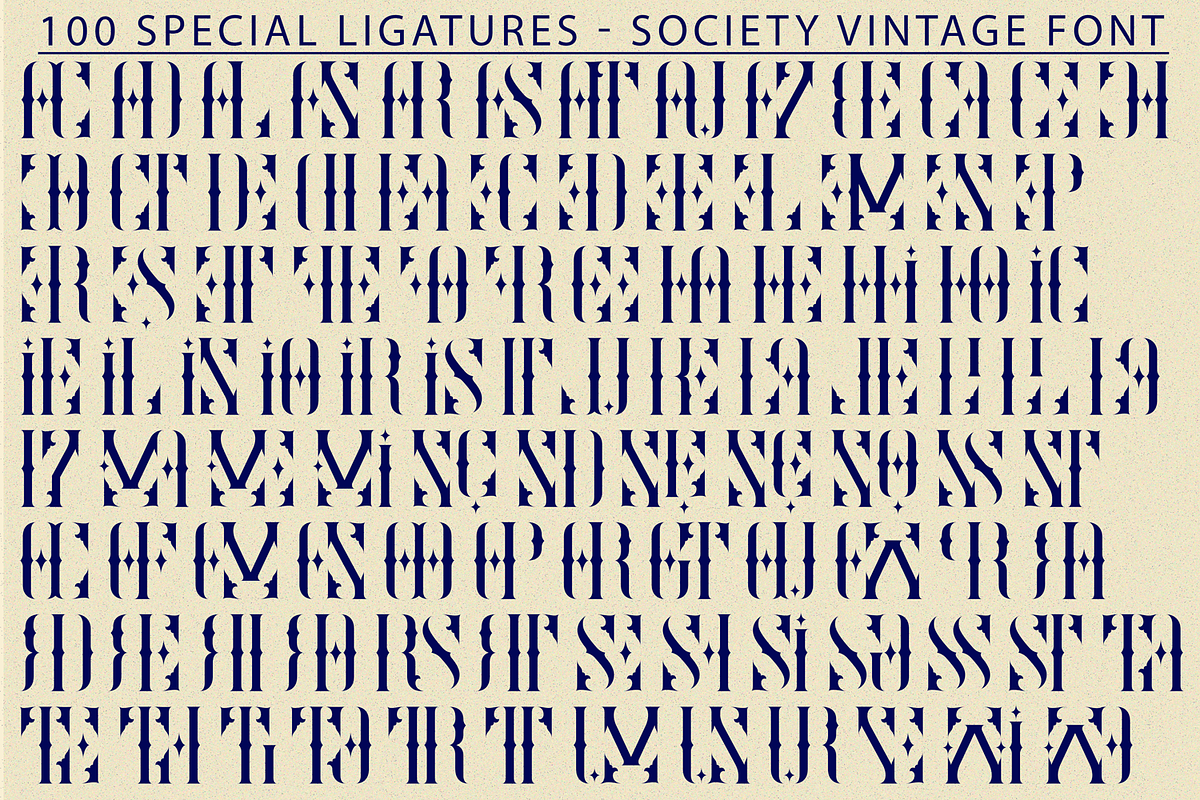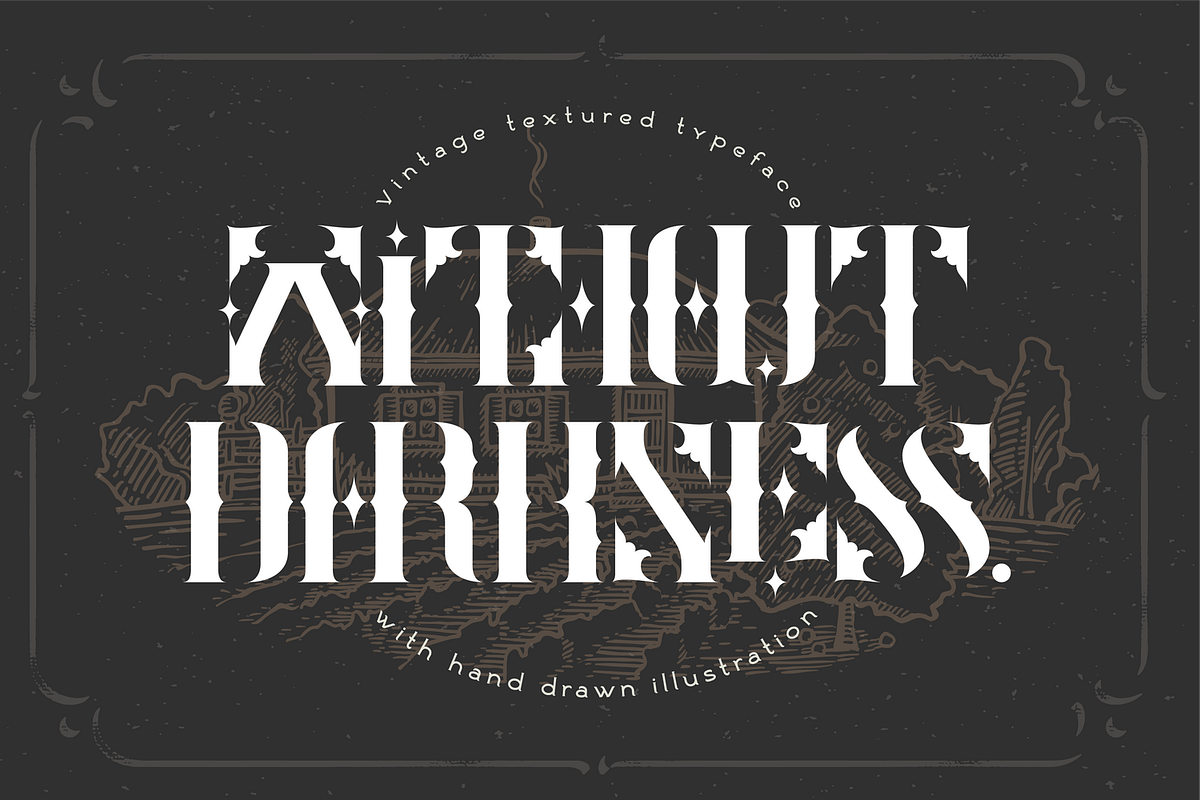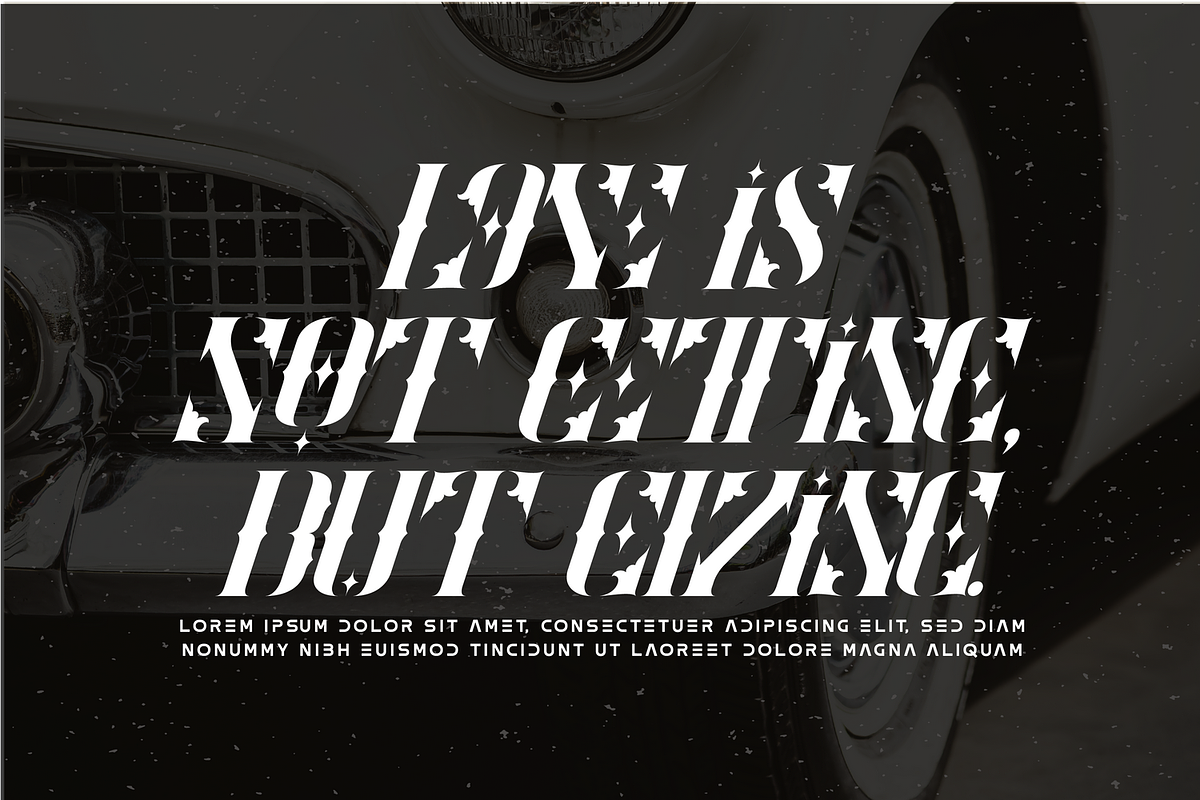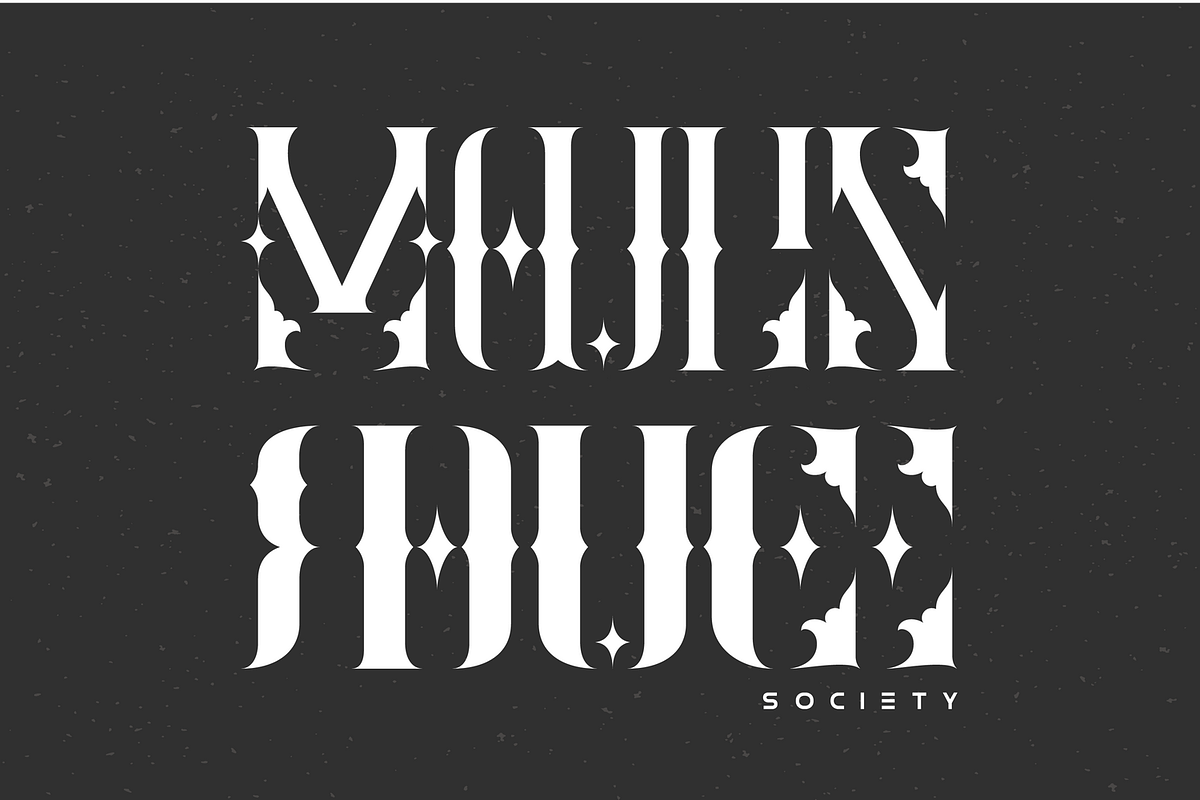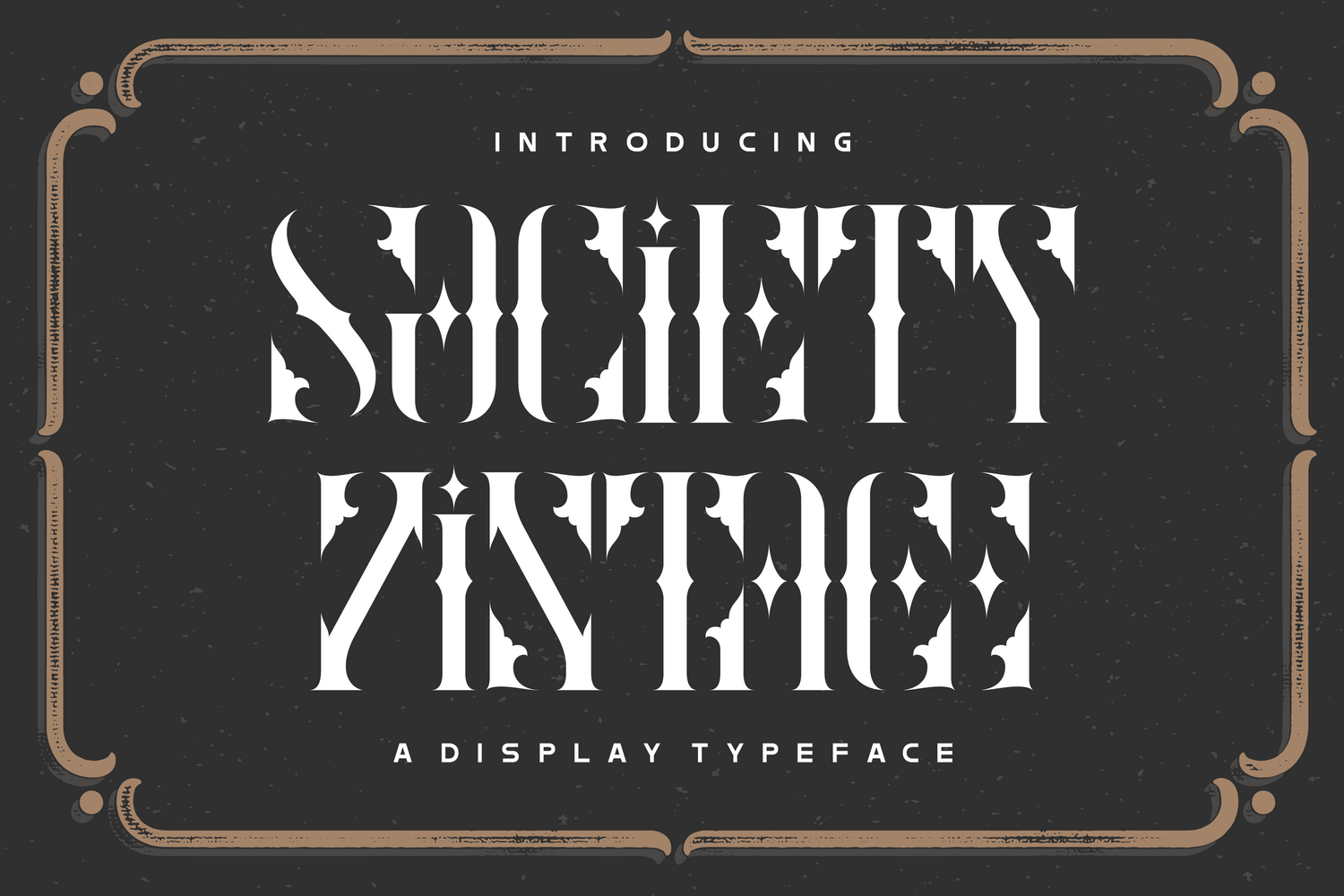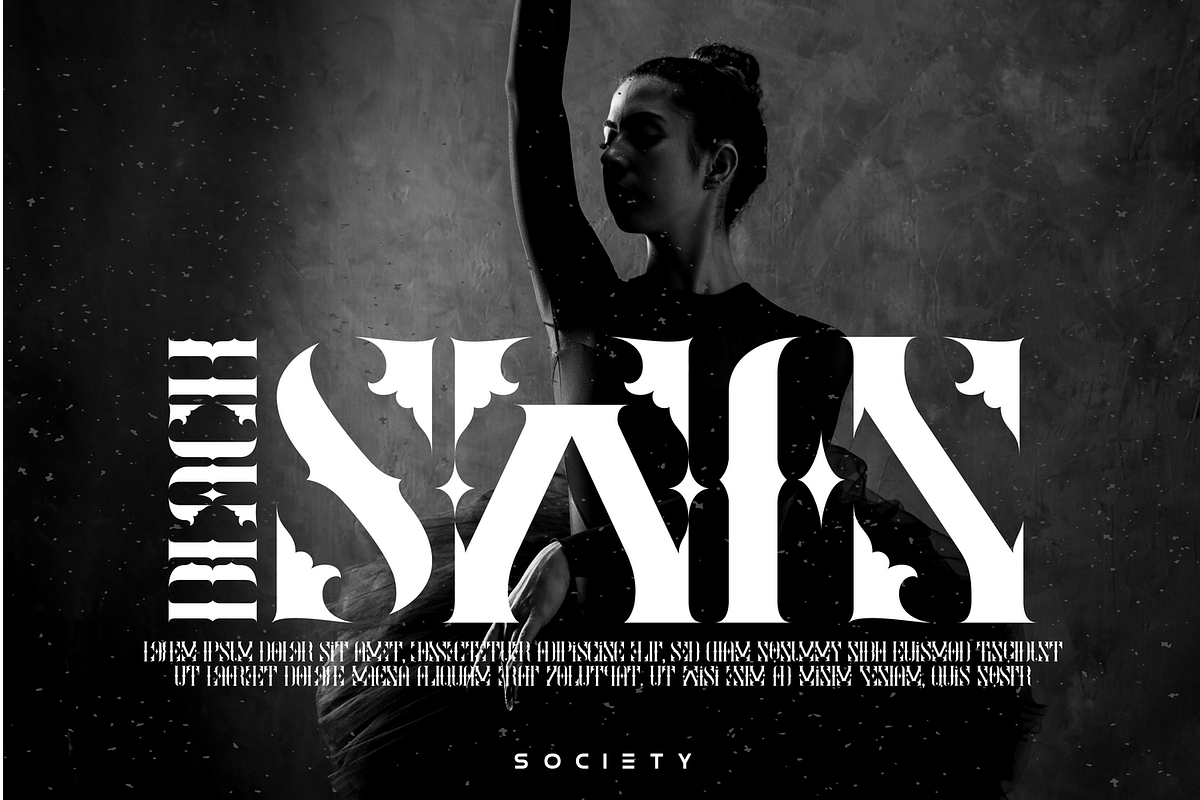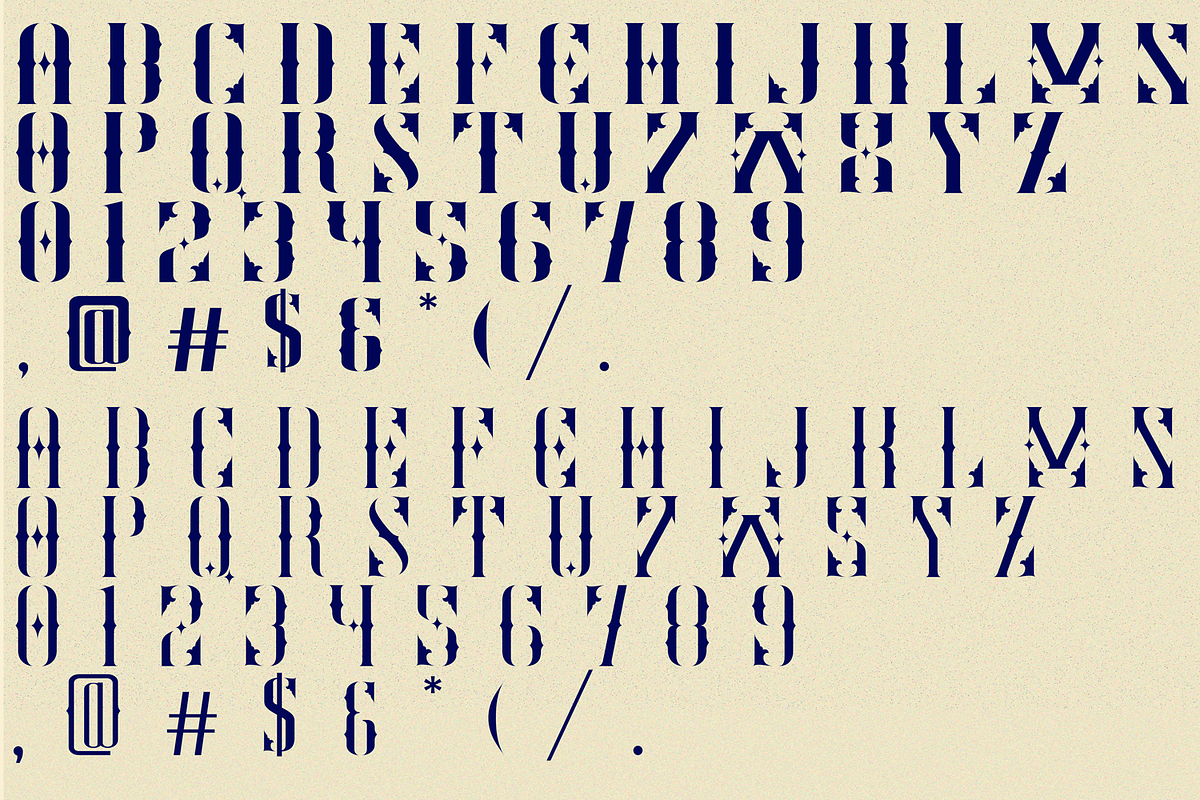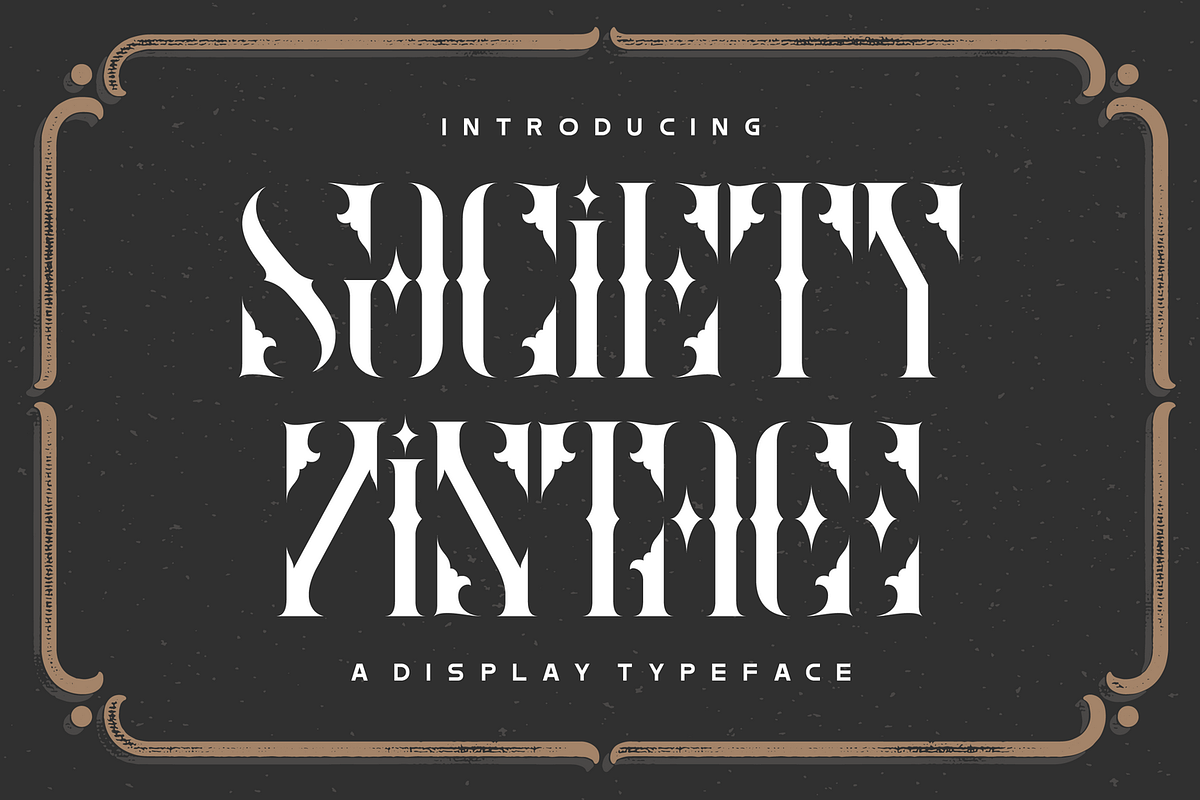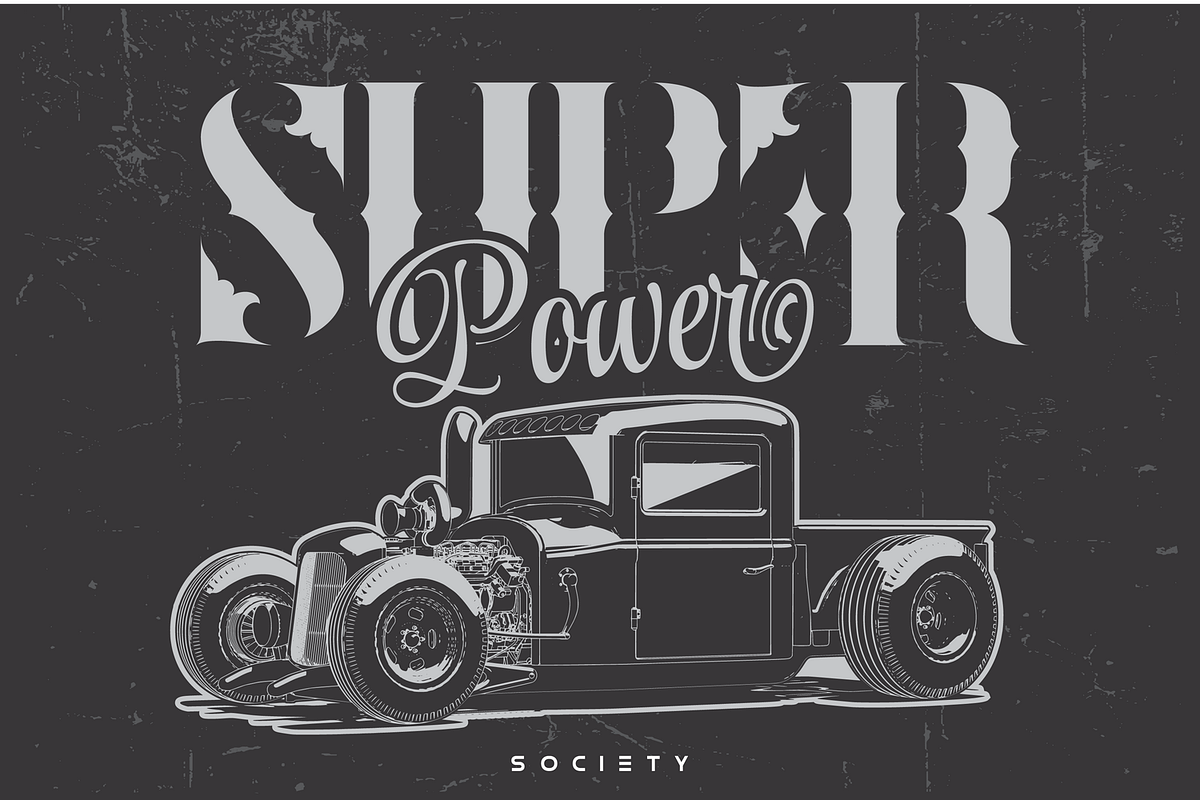
Society Vintage Font
Society Vintage Font is classic stencil serif font inspired by elegant serif typeface. I love its rustic feel - its imperfect lines lend to its hand drawn aesthetic. Great for Logos, Stationary, Posters, Apparel, literally everything design related. Perfect for that Vintage signage & hand drawn inspired feel.
Society was built with OpenType features and includes 100 ligatures, alternate, numbers, punctuation, and it also supports other languages.
AC AD AL AN AR AS AT AU AV BE CA CE CH CO CT DE DI EA EC ED EE EL EM EN EP ER ES ET FE FO FR GE HA HE HI HO IE IC IL IN IO IR IS IT JU KE LA LE LI LL LO LY MA ME MI NC ND NE NG NO NT NS OC OF OM ON OO OP OR OT OU OW PA PR RA RD RE RI RO RS RT SE SH SI SO SS ST TA TE TH TI TO TR TT UM UN UR VE WI WO
This font also included full set of:
- Special Ligatures